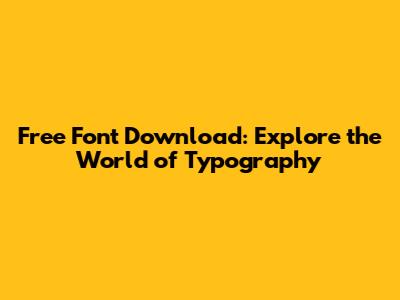
- Google Fonts: This is probably the most popular and user-friendly platform. It's a goldmine of open-source fonts, meaning they are free to use for both personal and commercial projects. Google Fonts is super easy to browse, with options to filter by style, thickness, and even the languages they support. Plus, they make it incredibly simple to integrate the fonts into your website or download them for use on your computer.
- Font Squirrel: A real treasure trove for designers, Font Squirrel handpicks fonts that are free for commercial use. They also have a handy font identifier tool, so if you see a font you love but don't know the name, you can upload an image and let Font Squirrel work its magic.
- DaFont: This is another big player in the free font game. DaFont has a massive library, but keep an eye on the license before you download. Some fonts are free for personal use only, so always double-check the fine print if you plan to use them commercially.
- Behance and Dribbble: These platforms are not strictly font libraries, but they are fantastic places to discover fonts created by talented designers. Many designers will offer their fonts for free download as a way to share their work and build their portfolios. It's a win-win!
- Consider Your Project's Purpose: Are you designing a website, a poster, or a logo? The purpose of your project will heavily influence your font choice. For example, a formal wedding invitation would call for an elegant script font, while a tech blog might be better suited to a clean, modern sans-serif. Always think about your target audience too.
- Think About Readability: Readability is king, especially for body text. Fonts like Arial, Helvetica, and Open Sans are great choices because they are easy on the eyes. If you are designing for a website, ensure the font is readable across all screen sizes and devices. Avoid overly stylized fonts for large blocks of text.
- Pair Fonts Thoughtfully: Don't just pick one font and call it a day! Combining different fonts can add depth and visual interest to your design. However, keep it simple. Avoid using too many fonts, as it can make your design look cluttered. Usually, two to three fonts are enough. Choose fonts that complement each other; perhaps a bold heading font with a more delicate body text font.
- Understand Font Families: A font family includes variations like regular, bold, italic, and condensed. Having a range of styles within a font family provides flexibility in your design. Knowing these options allows you to emphasize text, create visual hierarchy, and maintain a consistent look throughout your project.
- Test Your Font in Context: Before you commit to a font, test it out in your design. See how it looks in different sizes, colors, and layouts. Does it fit your overall aesthetic? Does it communicate the message you want to send? Experimenting is key!
- Serif Fonts: These fonts have small decorative strokes (serifs) at the ends of the letters. They often convey a sense of tradition, elegance, and formality. Common uses include print publications, headings, and body text in longer articles. Examples: Times New Roman, Garamond, and Georgia.
- Sans-Serif Fonts: These fonts lack the serifs, giving them a clean, modern look. They are very versatile and are ideal for digital interfaces, websites, and modern designs. They tend to be highly readable on screens. Examples: Arial, Helvetica, and Open Sans.
- Script Fonts: Designed to mimic handwriting, script fonts can add a touch of personality and elegance. They are great for invitations, logos, and decorative elements. Use them sparingly, as they can be difficult to read in large blocks of text. Examples: Brush Script, Lobster, and Pacifico.
- Display Fonts: Display fonts are used for headings, titles, and other areas where you want to grab attention. They often have unique styles and are not intended for body text due to their lower readability. Examples: Impact, Bebas Neue, and Montserrat.